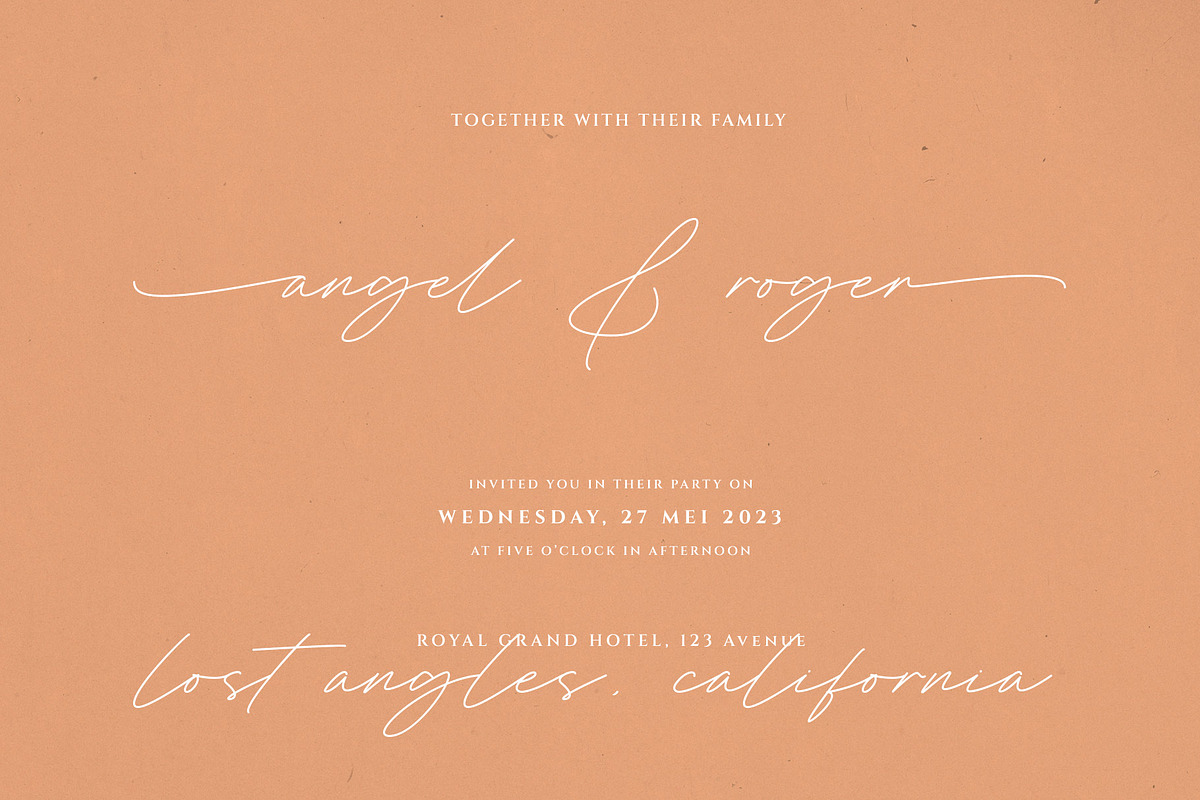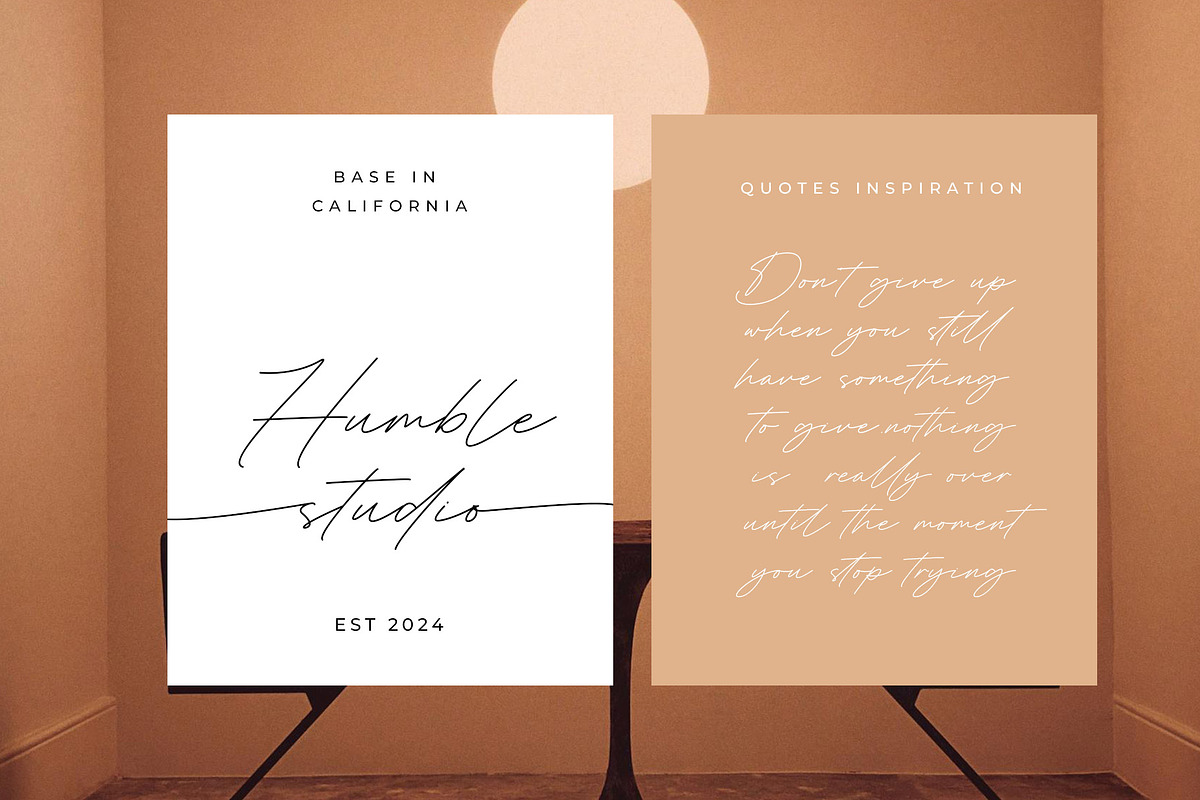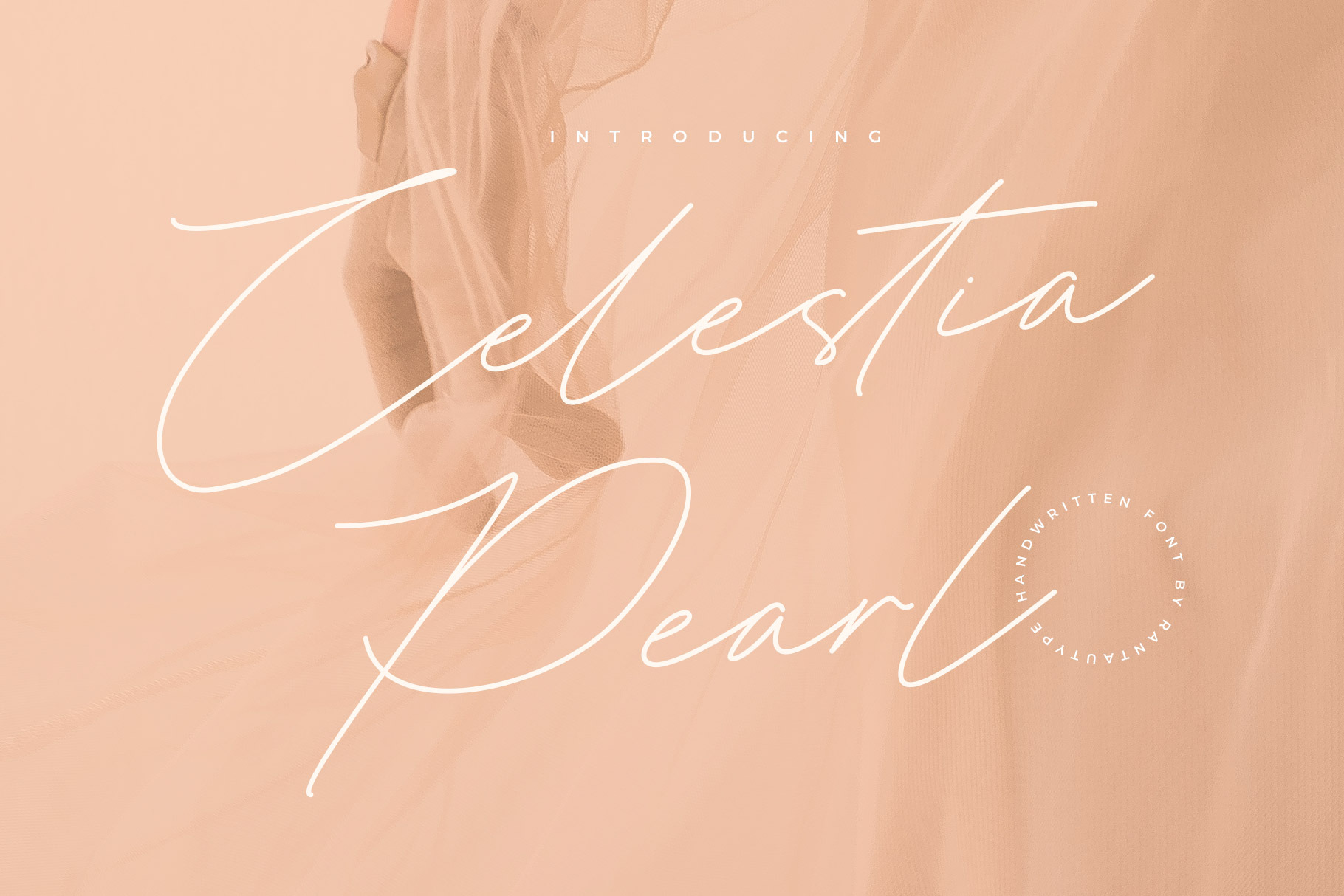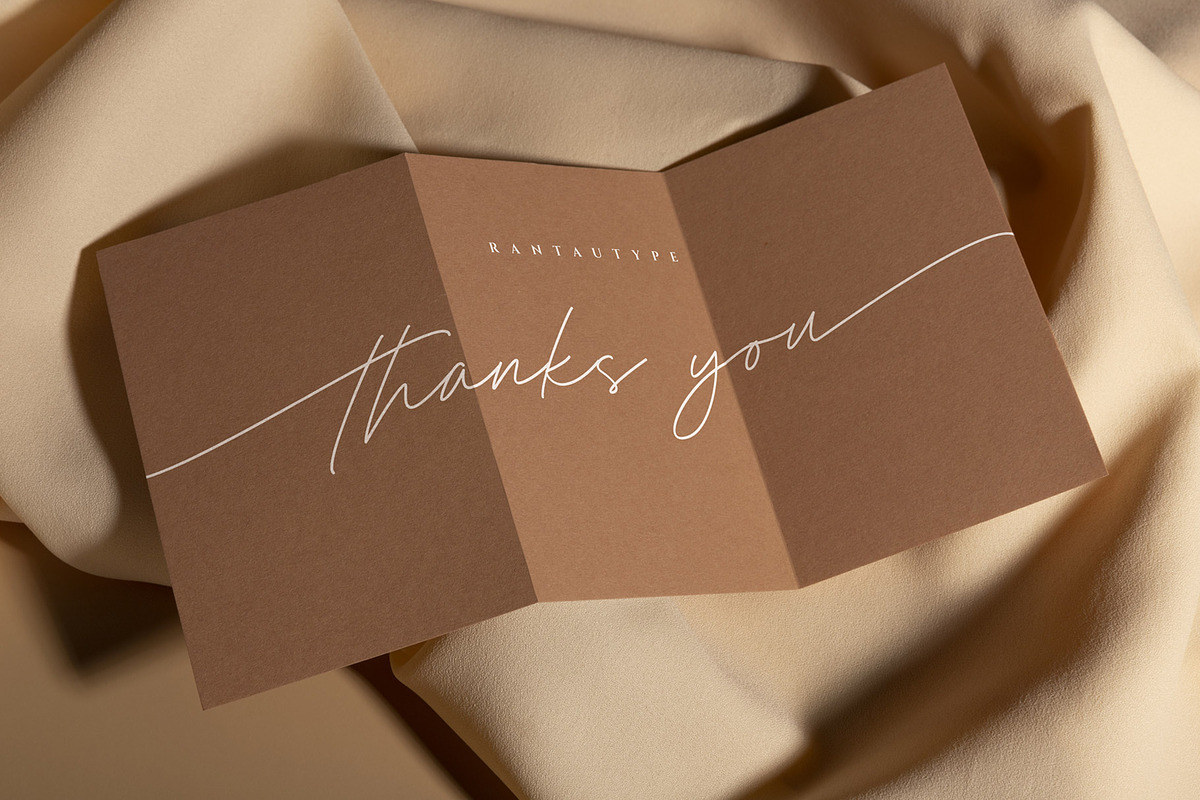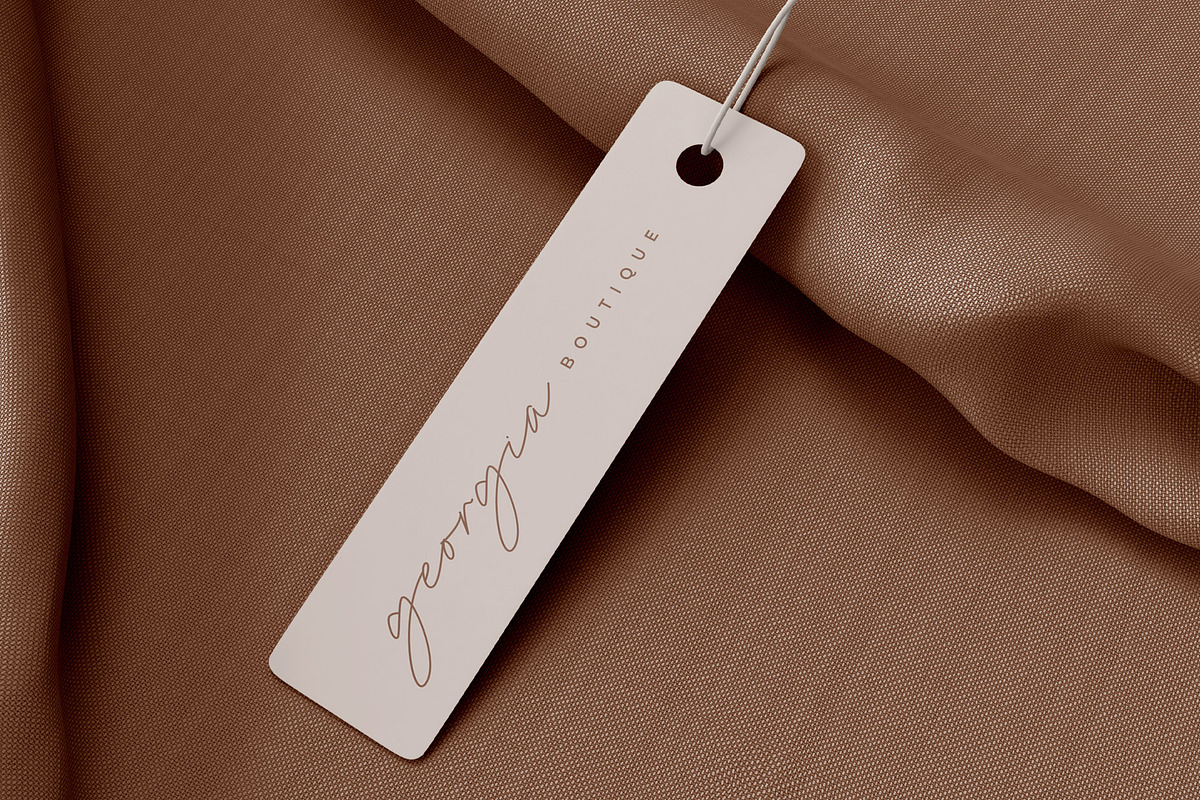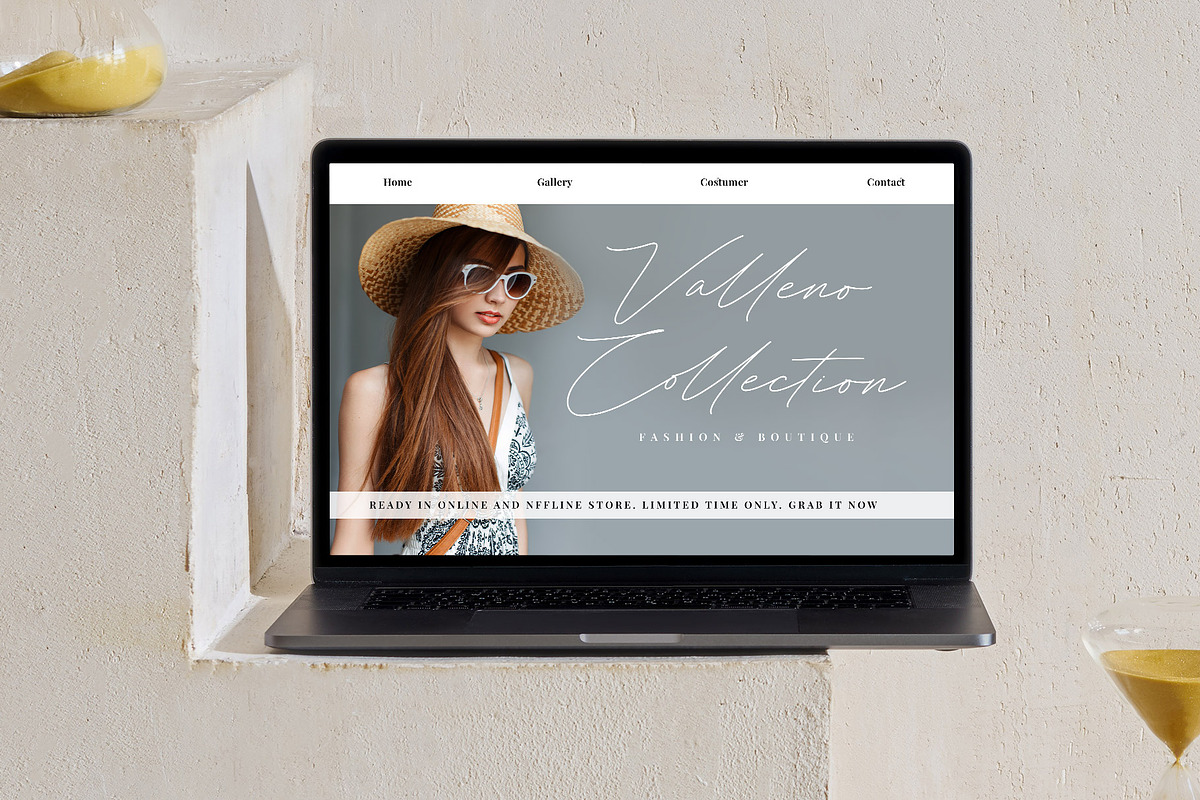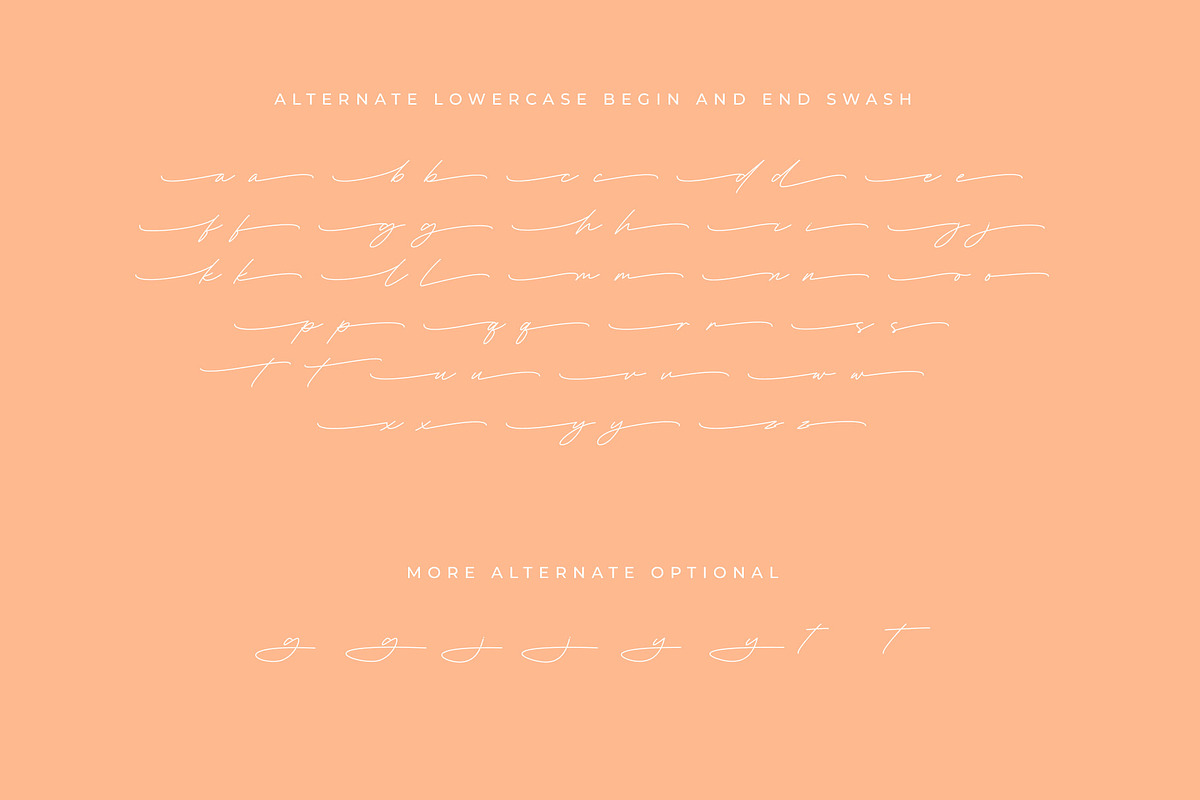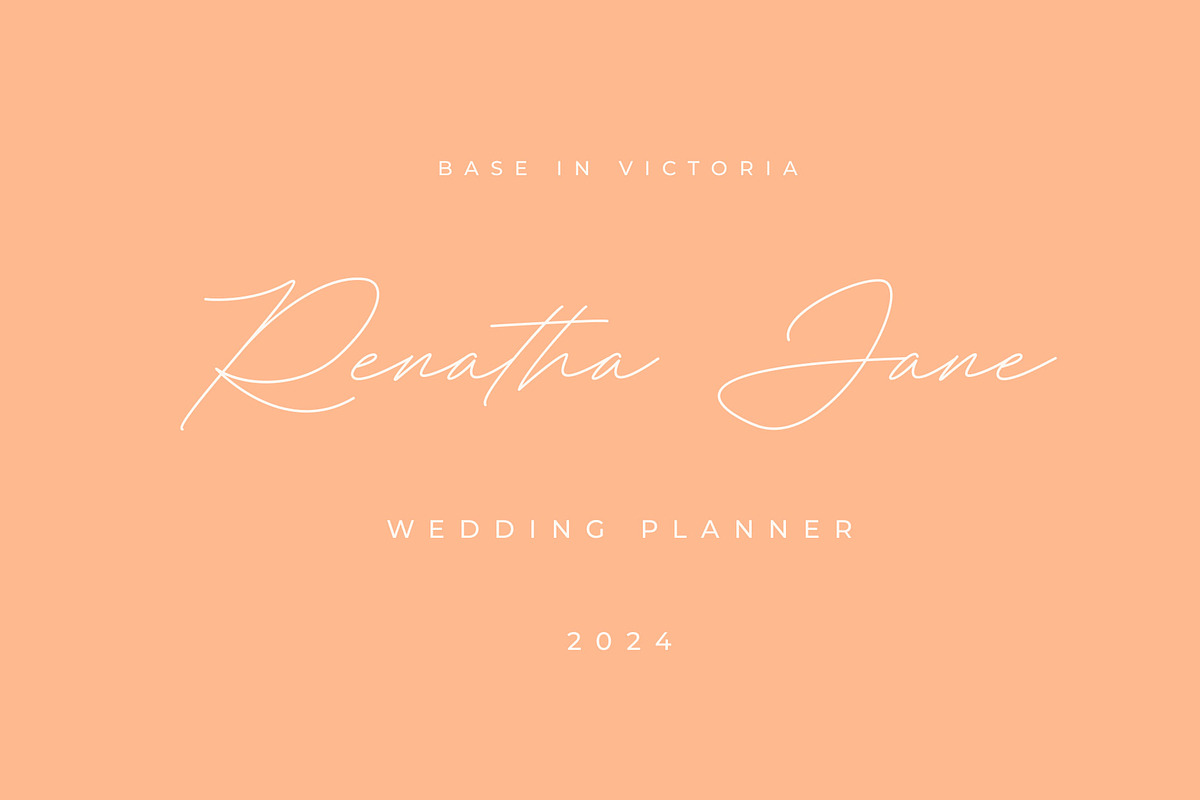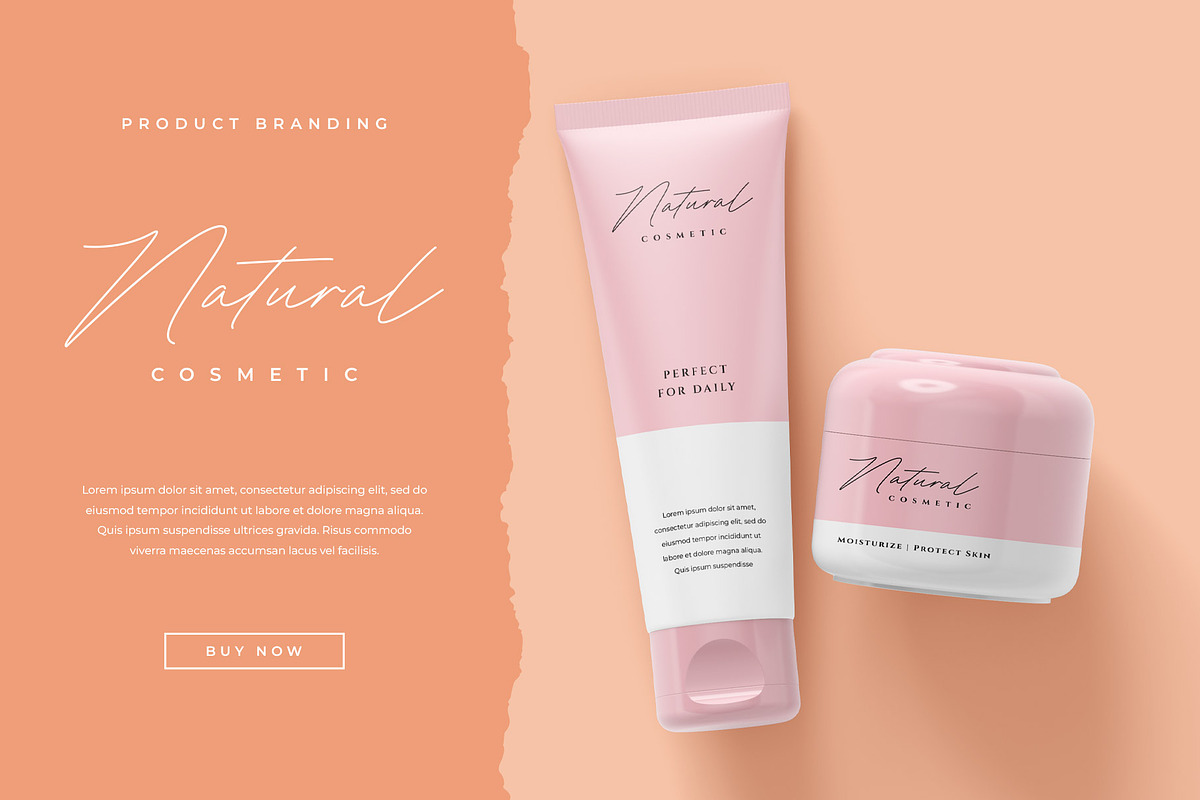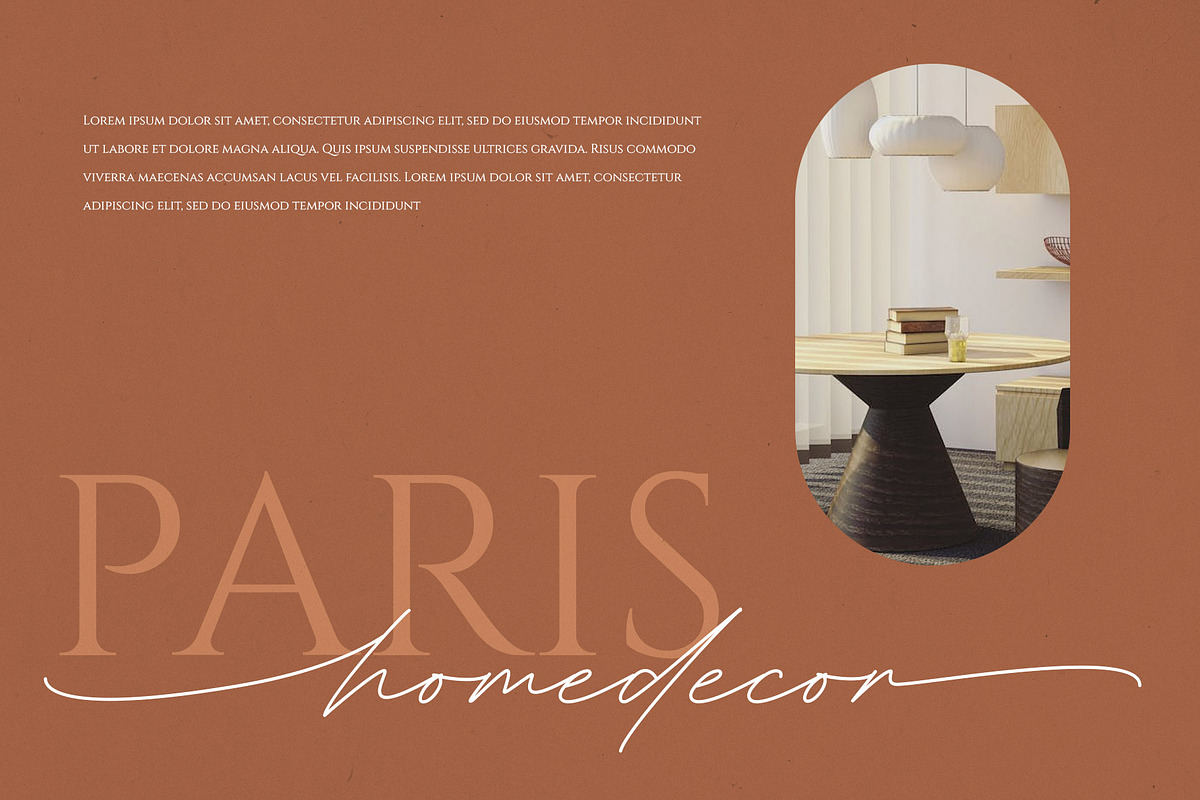
Celestia Pearl Handwritten Font
Hi Ladies and Gentleman ! Proudly present casual handwritten font "celestia pearl" for you business.
Celestia Pearl - modern monoline style which can be interpreted professional. we keep this font looks elegant, luxury, premium, modern, readable, stylish, feminine, catchy and easy to use.
Celestia Pearl - is the great choice for watermark on photography, branding, wedding event, signature or signature logo design, quotes, album cover, magazine, business card and many other design project. Celestia Pearl here to make your work to high level!!!
- Standar character A-Z and a-z
- Ligature and Alternate
- Lowercase begin and end swash
- Multilinggual support